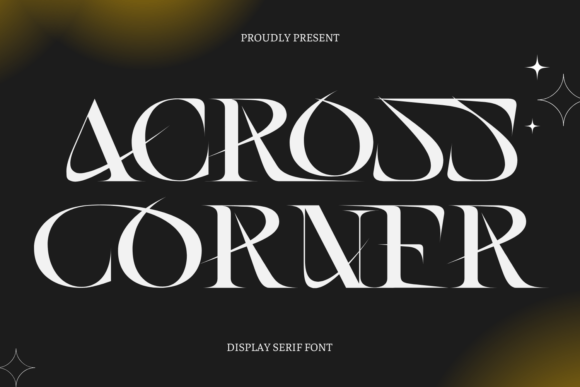
Introducing Across Corner Font: A Timeless Elegance Meets Modern Aesthetic
In the world of typography, fonts play a crucial role in conveying the tone and personality of a brand or design. With the ever-evolving landscape of graphic design, it’s essential to stay ahead of the curve with fonts that exude both elegance and modernity. Across Corner Font is a stunning serif display font that seamlessly bridges the gap between timeless elegance and a modern aesthetic, making it a perfect fit for designers and brands looking to make a statement.
A Fusion of Medieval Elegance and Dark Futuristic Design
Across Corner Font is a bold and captivating serif display font that combines the classic charm of medieval serifs with the edgy allure of dark futuristic design. This unique fusion creates a font that conveys both power and sophistication, making it an ideal choice for designs that require a sense of luxury and modernity.
The font’s sharp details and intricate curves are meticulously crafted to evoke a sense of grandeur and opulence, reminiscent of medieval typography. At the same time, its sleek and streamlined design ensures that it remains relevant and fresh, even in the most contemporary of designs.
Built with OpenType Features for Enhanced Typography
Across Corner Font is built with OpenType features, which provide a range of typographic possibilities. The font includes:
- 100 ligatures to add a touch of elegance and sophistication to your designs
- Alternate characters to provide flexibility and versatility in your typography
- Numbers and punctuation to ensure that your designs are complete and polished
- Language support to cater to a global audience
With OpenType features, designers can take their typography to the next level, creating complex and beautiful text arrangements that elevate their designs.
Perfect for Dark, Futuristic Aesthetics
Across Corner Font is specifically designed to thrive in dark, futuristic aesthetics. Its bold and captivating design makes it an ideal choice for:
- Movie and video game titles that require a sense of grandeur and drama
- Branding and advertising campaigns that need to make a bold statement
- Packaging and product design that demands attention and sophistication
- Web and mobile app designs that require a touch of elegance and modernity
The font’s versatility ensures that it can be used across various design applications, from print to digital, and everything in between.
Tips and Tricks for Using Across Corner Font
To get the most out of Across Corner Font, here are some tips and tricks to keep in mind:
- Experiment with different font sizes and weights to create visual hierarchy and emphasis
- Use the font’s ligatures and alternate characters to add a touch of elegance and sophistication
- Pair Across Corner Font with a sans-serif font to create a striking contrast
- Don’t be afraid to get creative and try out new and innovative design applications
Across Corner Font is a stunning serif display font that combines timeless elegance with a modern aesthetic. With its sharp details, intricate curves, and OpenType features, this font is perfect for designers and brands looking to make a statement. Whether you’re working on a dark, futuristic design or a luxury brand campaign, Across Corner Font is sure to impress.